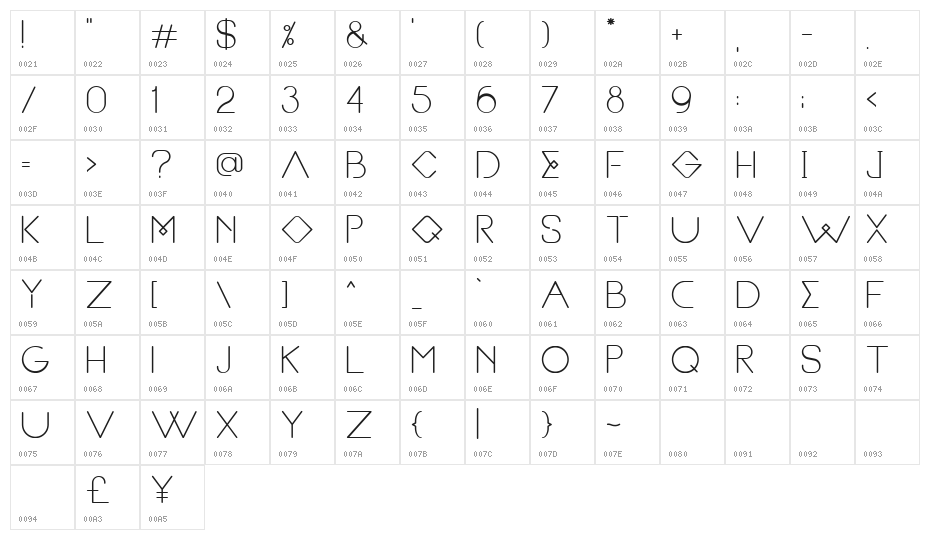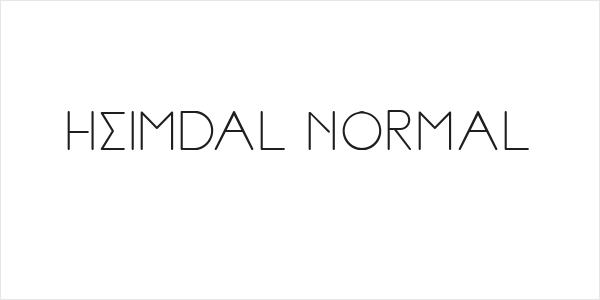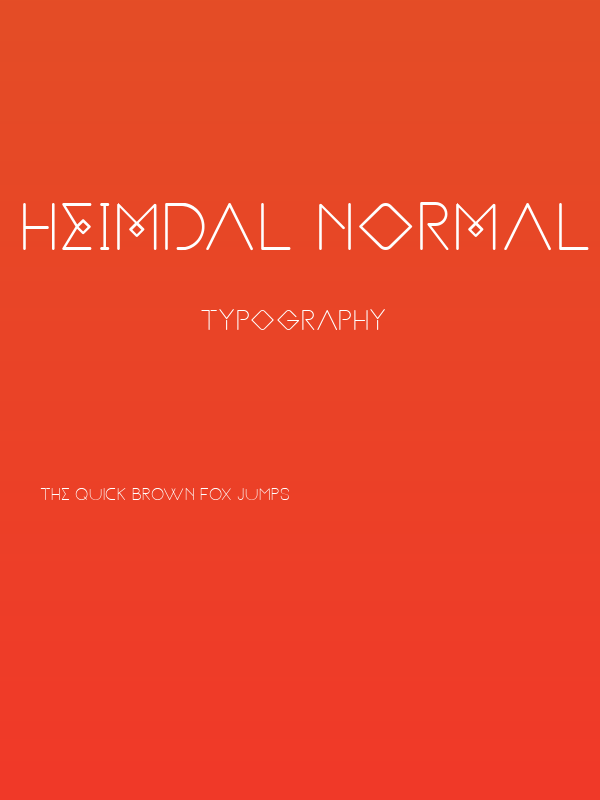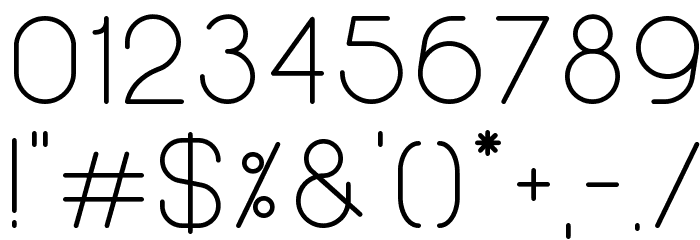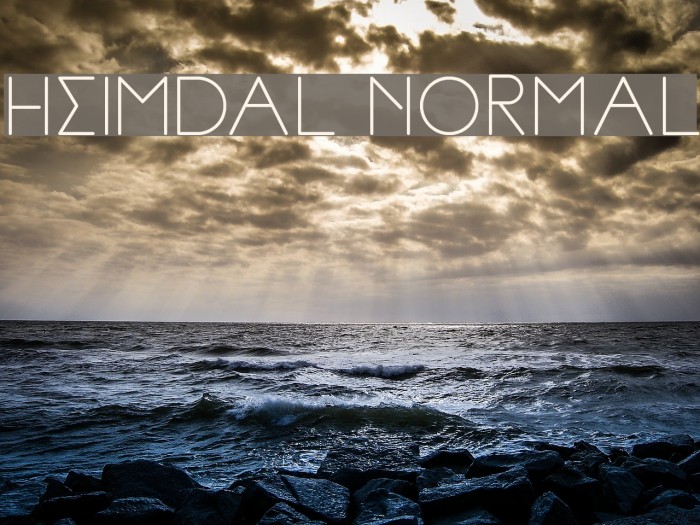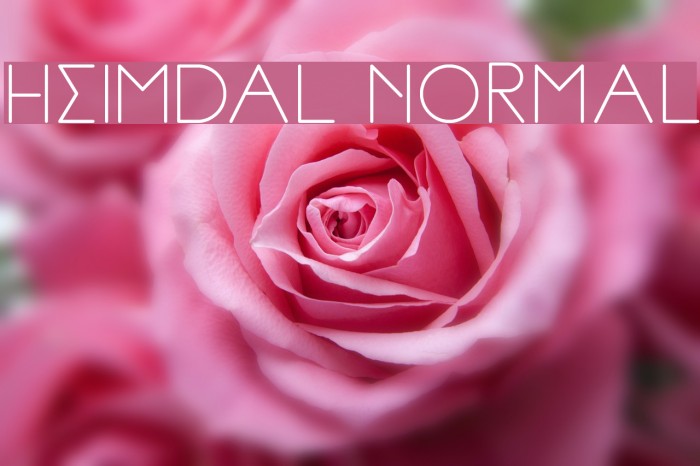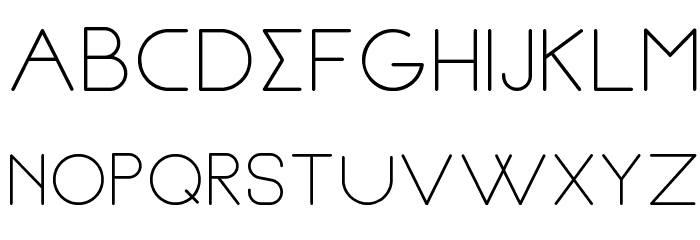
Heimdal Normal Font
Heimdal Normal Description
This font features a geometric and minimalist design, characterized by clean lines and a modern aesthetic. The uppercase letters exhibit unique angular elements, particularly noticeable in characters like 'A', 'E', and 'R', which add a distinctive flair. The lowercase letters maintain a consistent style, ensuring readability while preserving the font's modern look. Numbers are straightforward and align well with the overall design, making them suitable for various applications. Special characters are crafted with the same attention to detail, ensuring they complement the alphabetic characters seamlessly. This font's design is ideal for projects that require a contemporary and stylish appearance.
| Use Case | Headlines, Logos, Advertising |
| Proposed Projects | Ideal for branding, advertising, and digital media projects that require a contemporary and stylish look. |